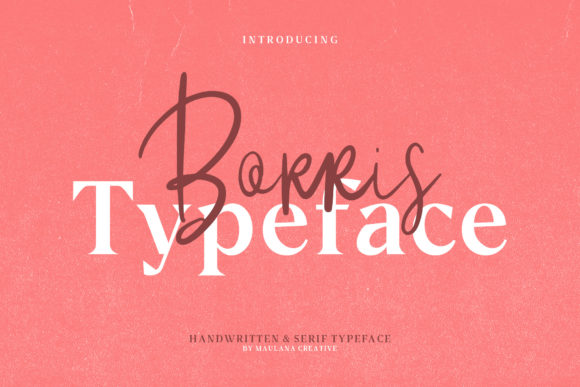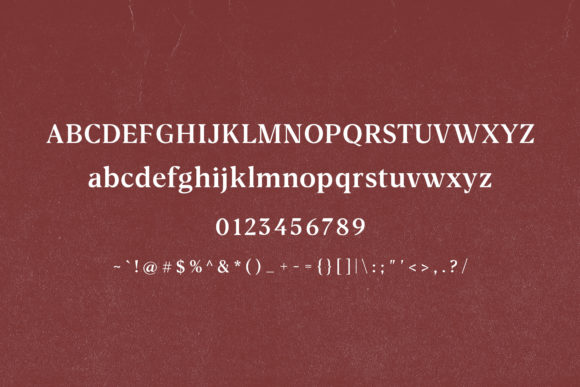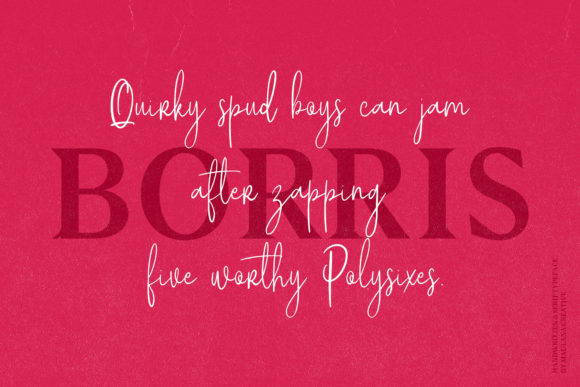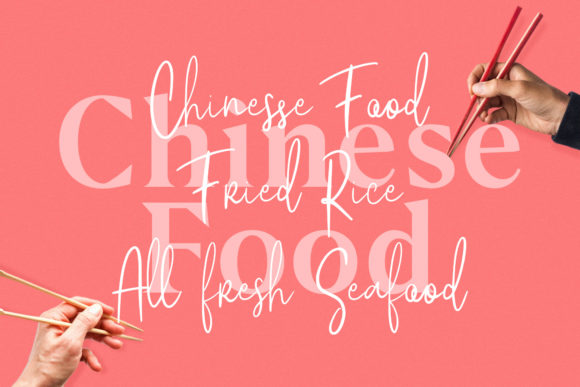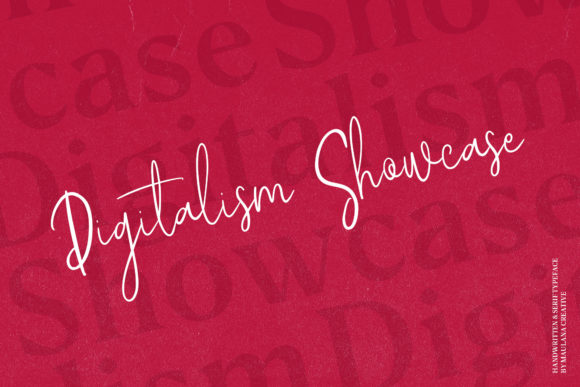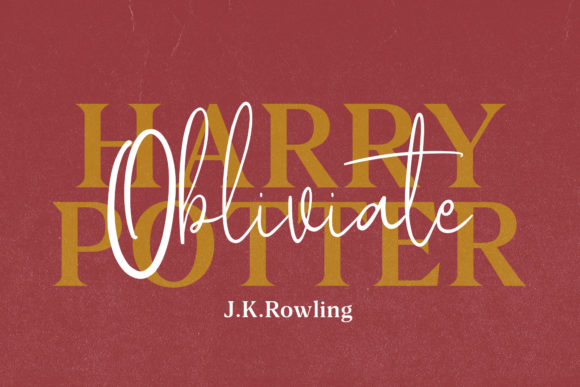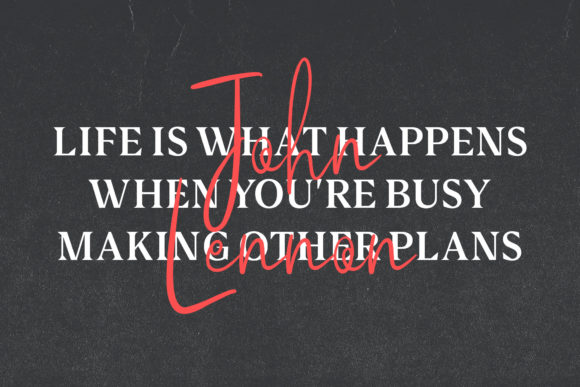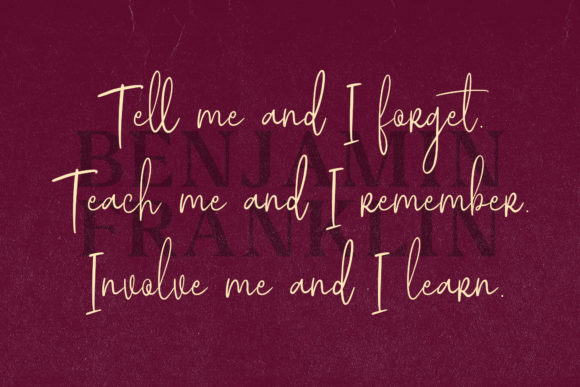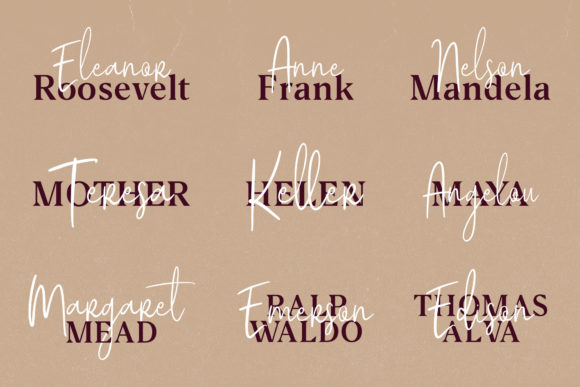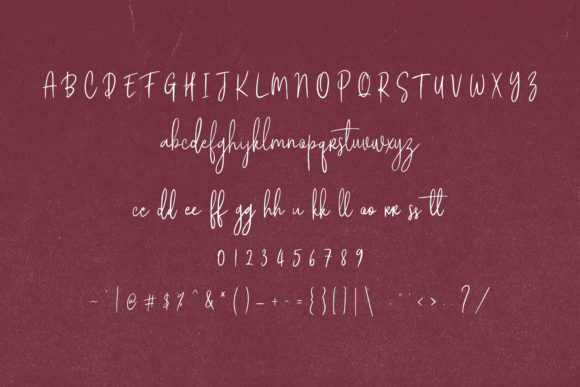
HomeScript FontsBorris Font Script Fonts Borris Font FacebookXPinterestWhatsApp Borris Font Poster 2 Borris Font Poster 3 Borris Font Poster 4 Borris Font Poster 5 Borris Font Poster 6 Borris Font Poster 7 Borris Font Poster 8 Borris Font Poster 9 Borris Font Poster 10 About Borris Font Borris is a fun and bold display font with a cool twist. Get inspired by its modern style! DOWNLOAD ON CREATIVE FABRICAThis font is sold and delivered by Creative Fabrica. Font Canyon may earn a commission if you buy through this link. People also explored Gnome Easter Font Scotch Micro Qwertiya Font Jailbolt Font Bee Sweet Font Begin Font Zulfiqar Font Gusty Fenti Font Confident Font 273 0 TagsBorris Font Previous articleDadali FontNext articleValencia Font LEAVE A REPLY Cancel reply Comment: Please enter your comment! Name:* Please enter your name here Email:* You have entered an incorrect email address! Please enter your email address here Website: Save my name, email, and website in this browser for the next time I comment. Personal Use Free Loving Personal Use Free Read more about this font Sunbright Font Personal Use Free Read more about this font Rolling Door Personal Use Free Read more about this font Casual Personal Use Free Read more about this font BLOG Free Fonts Risk: Why Free Fonts Can Be Dangerous for Designers Free Fonts Risk: Why Free Fonts Can Be Dangerous for Designers Using free fonts is a common practice in web and graphic design. However, the... How to Install and Use Fonts on Windows, macOS, and Web Projects Modern Sans-Serif Fonts That Brands Love in 2025 5 Fonts That Will Dominate Design Trends in 2026